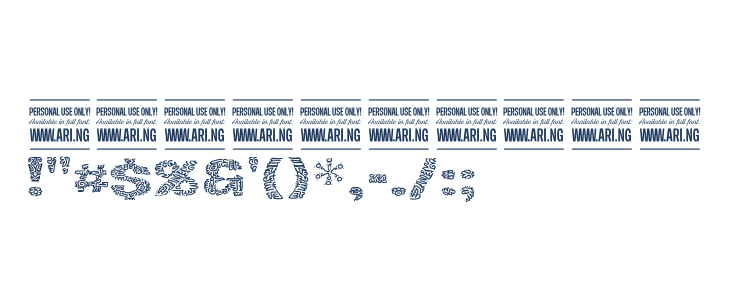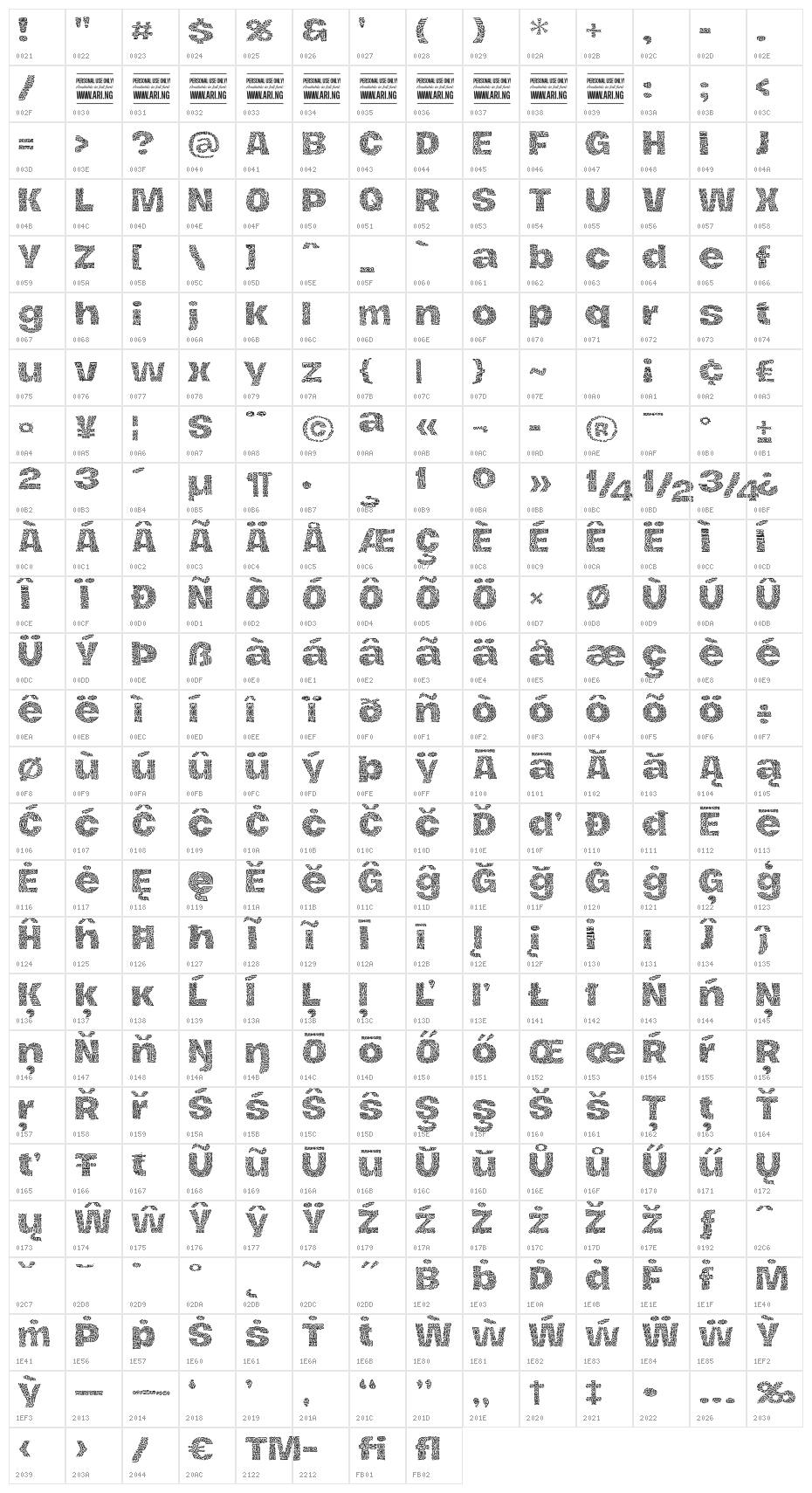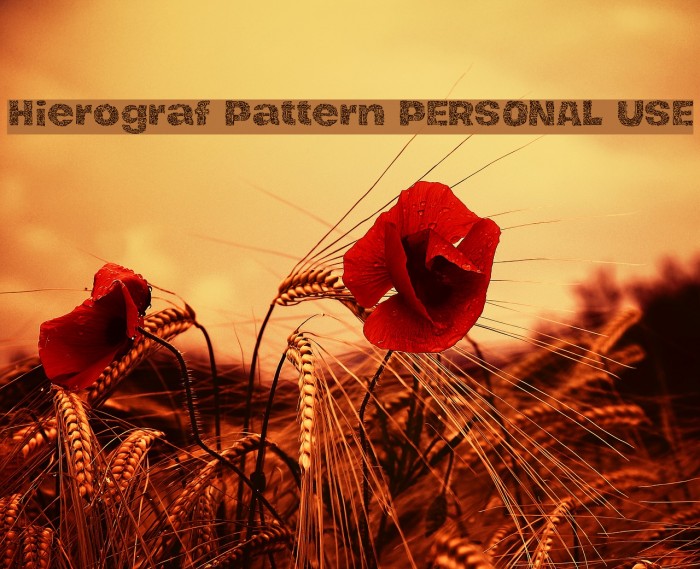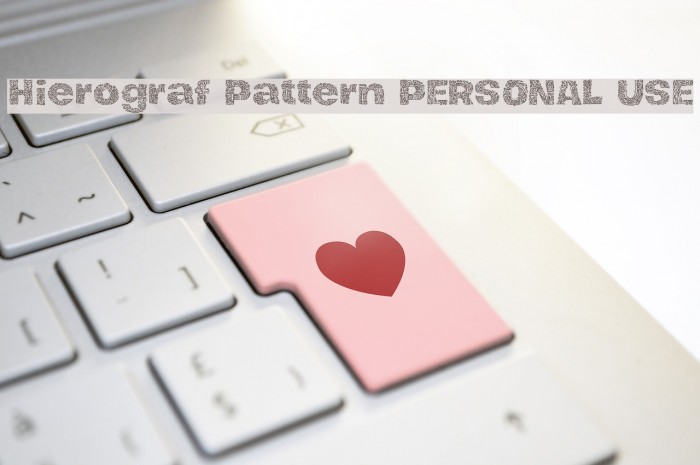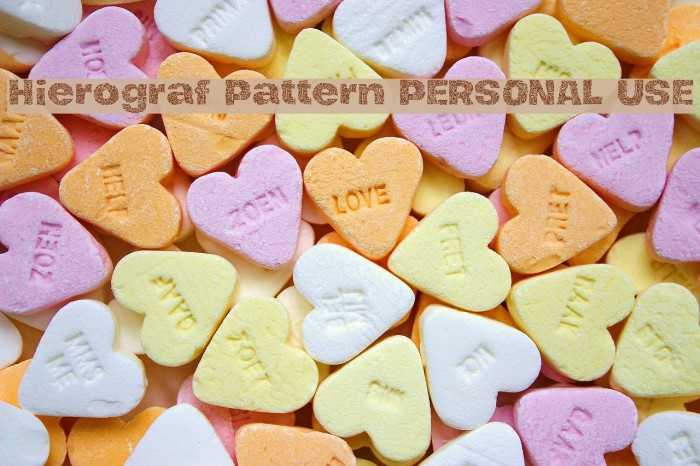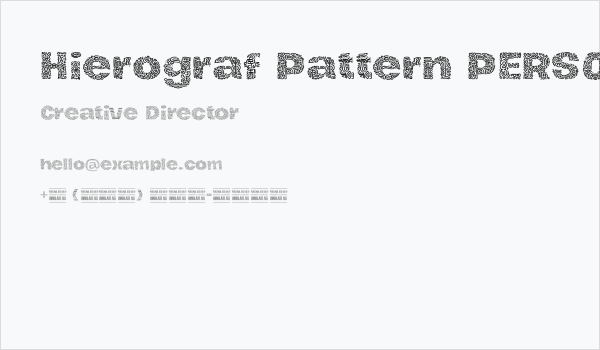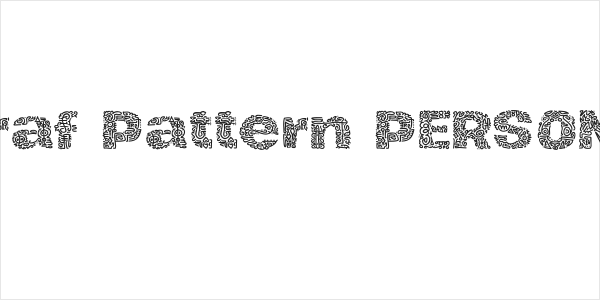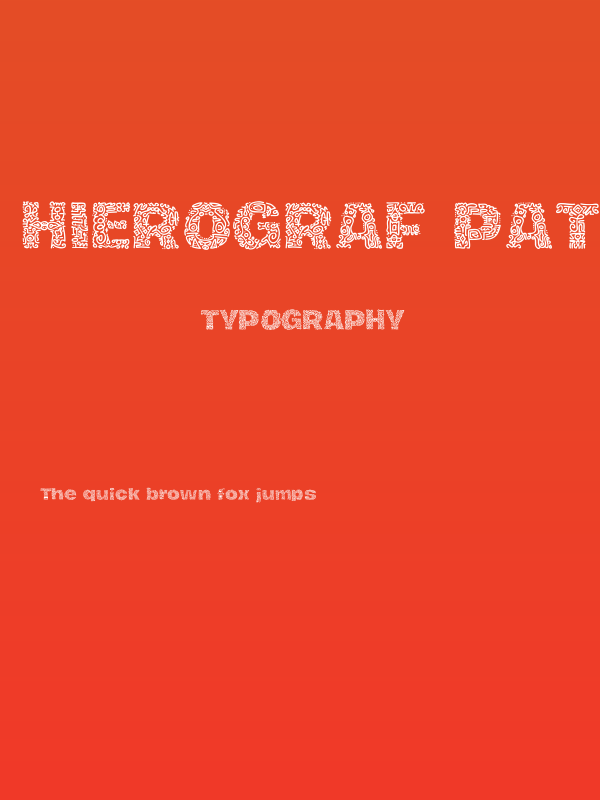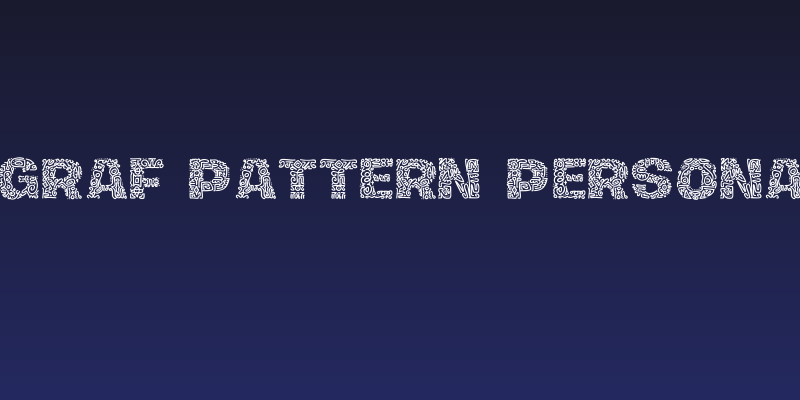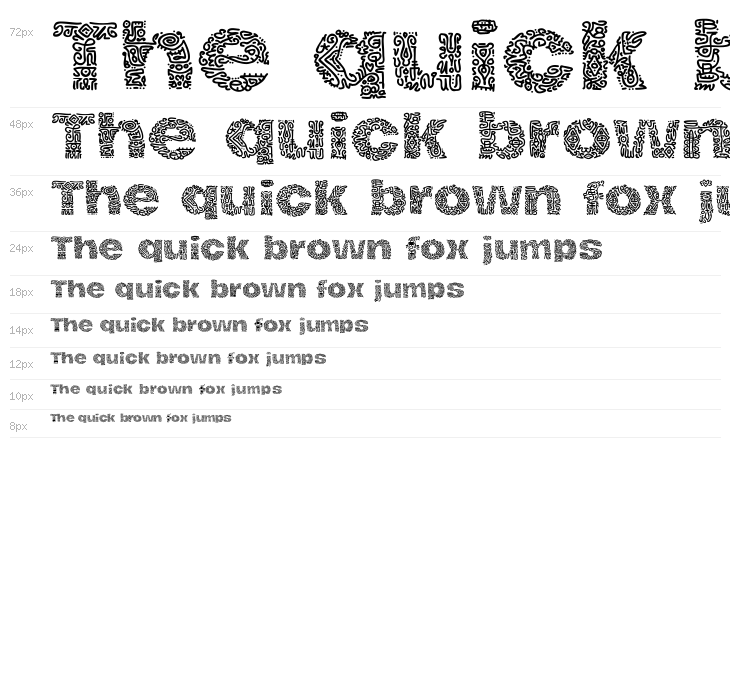
Hierograf Pattern PERSONAL USE Font
Hierograf Pattern PERSONAL USE Description
This font features an intricate, decorative pattern within each character, creating a visually complex and artistic appearance. The letters are filled with swirling, abstract designs that give a sense of movement and creativity. The overall look is bold and eye-catching, making it suitable for projects that require a unique and artistic touch. The uppercase and lowercase letters maintain a consistent style, with each character being distinct yet harmonious within the set. The special characters and numbers follow the same decorative theme, ensuring a cohesive look across all elements.
| Proposed Projects | Ideal for artistic posters, creative branding, unique invitations, and decorative headlines. |